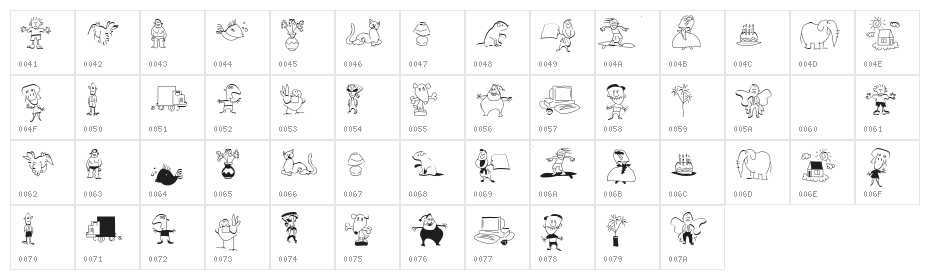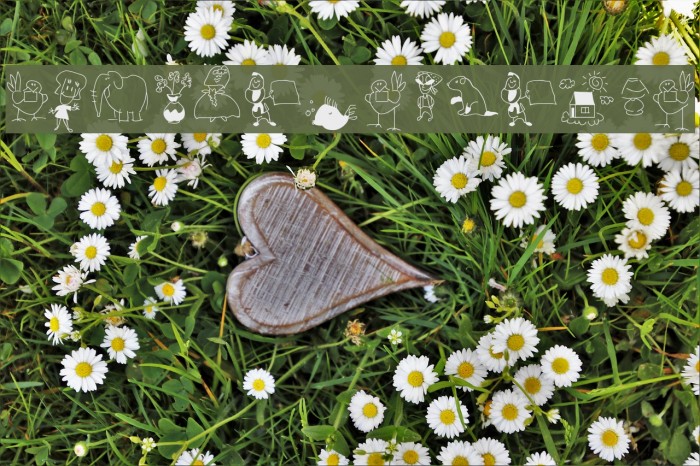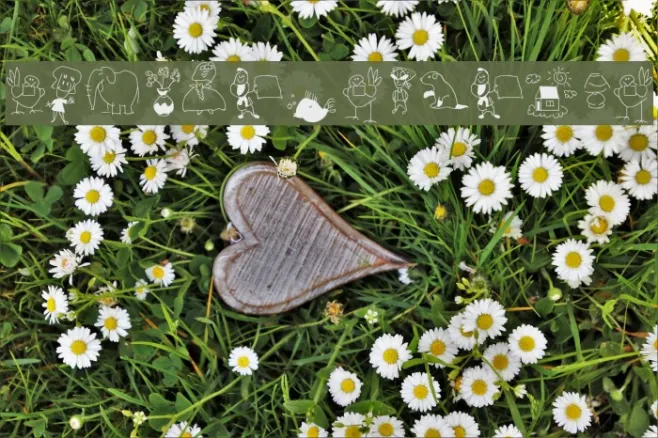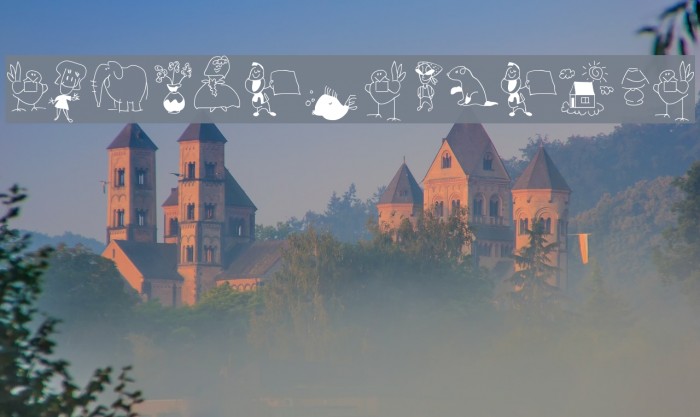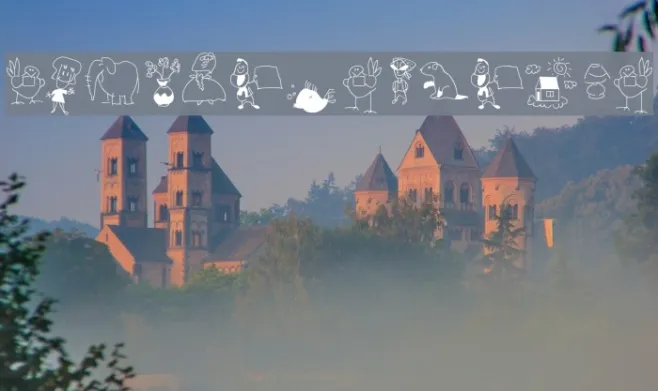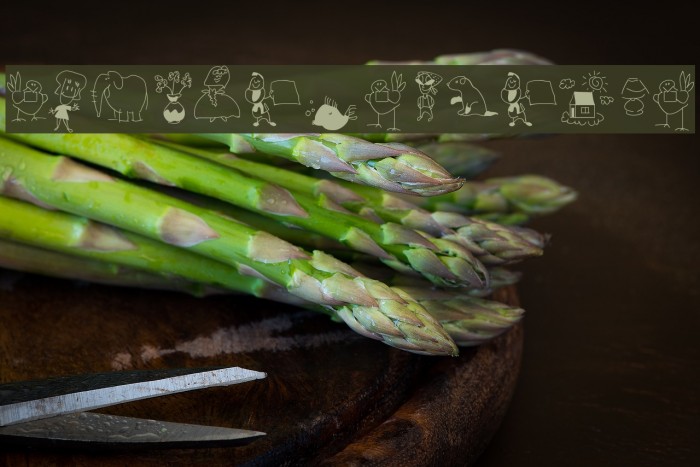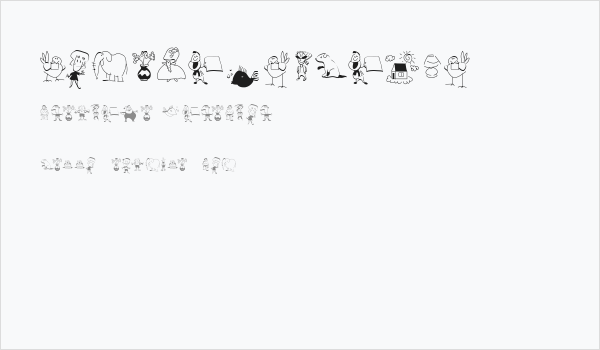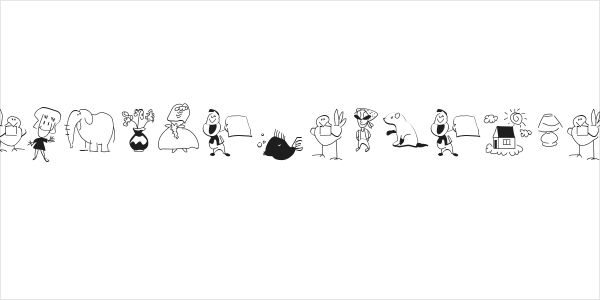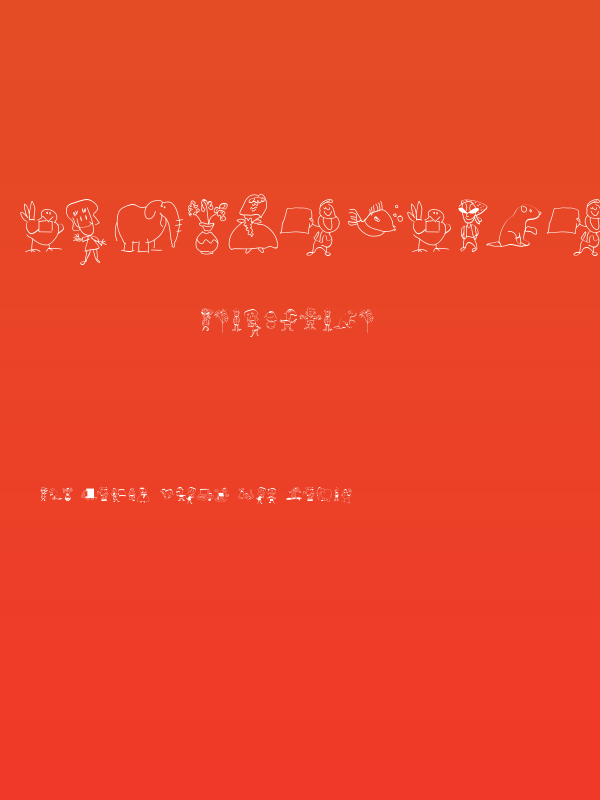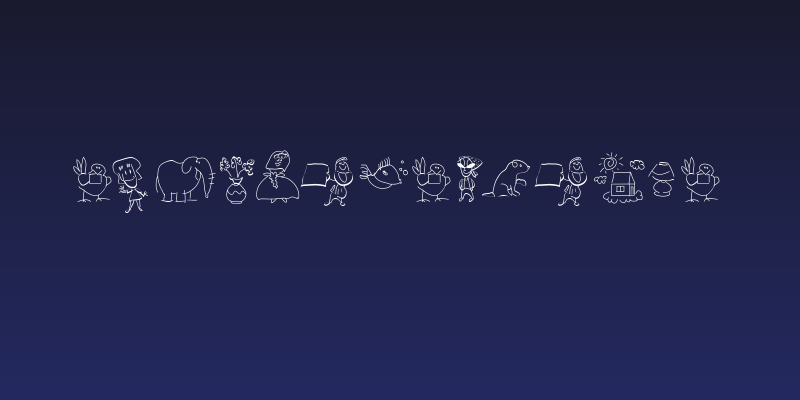
SomeKidsThings Font
A playful, hand-drawn dingbat font featuring whimsical cartoon characters, animals, and objects with a childlike, sketchy line style. Each glyph is a unique illustration rather than a traditional letterform.
Overall StylePlayful, Whimsical, Childlike, Decorative
Use CaseDecorative elements, icons, embellishments, not for text.
Proposed ProjectsChildrenÒ€ℒs books, educational materials, party invitations, playful branding, scrapbooking, greeting cards.